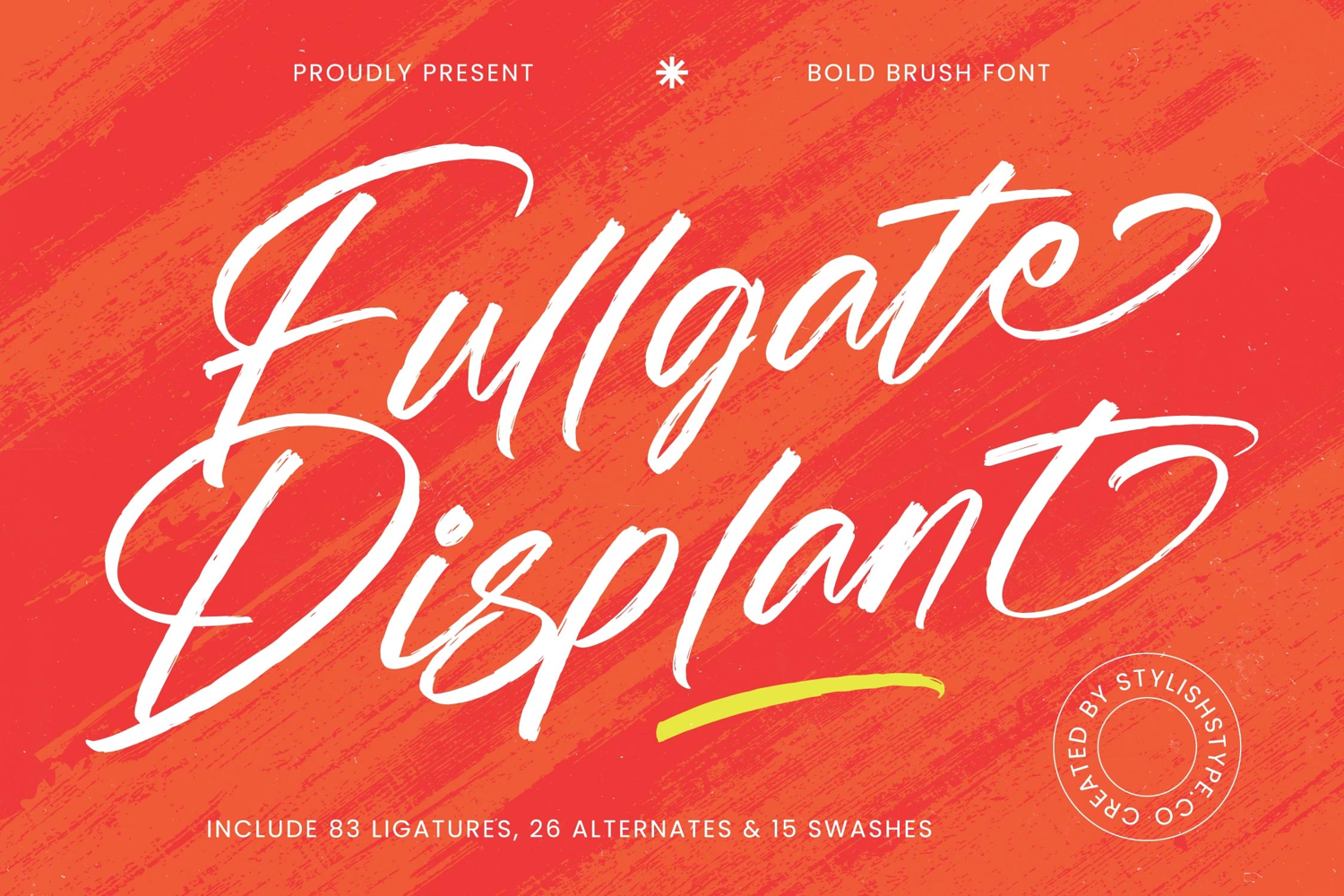
Fullgate Displant - Bold Brush Font
Discover the undeniable charm and expressive power of Font Fullgate Displant - Bold Brush Font Script, a typeface crafted to captivate. This bold brush font immediately conveys handcrafted authenticity and vibrant energy, its strokes reflecting genuine artistry. Each letter flows with dynamic rhythm, establishing a unique visual narrative that is both raw and refined. It's the ideal choice for projects demanding memorable, impactful statements.
Beyond its captivating aesthetics, Font Fullgate Displant - Bold Brush Font Script offers unparalleled creative versatility. Equipped with an impressive suite of 83 ligatures, 26 alternates, and 15 swashes, it provides designers with extensive options. With its extensive multilingual support, Font Fullgate Displant - Bold Brush Font Script adapts seamlessly across global markets, making it incredibly versatile for international projects.
Perfectly suited for a diverse range of applications, this font excels where personality and impact are paramount. It's an impeccable choice for luxury branding, eye-catching packaging, compelling editorial design, stylish apparel, dynamic social media graphics, and heartfelt event invitations. Font Fullgate Displant - Bold Brush Font Script is engineered to elevate any design, infusing it with a distinctive character that truly stands out.
Transform your creative vision into reality with the powerful stroke of Font Fullgate Displant - Bold Brush Font Script. This font is an essential tool for designers aiming to convey emotion and command attention. Embrace its dynamic personality and robust features to craft designs that not only speak volumes but also leave an unforgettable impression.